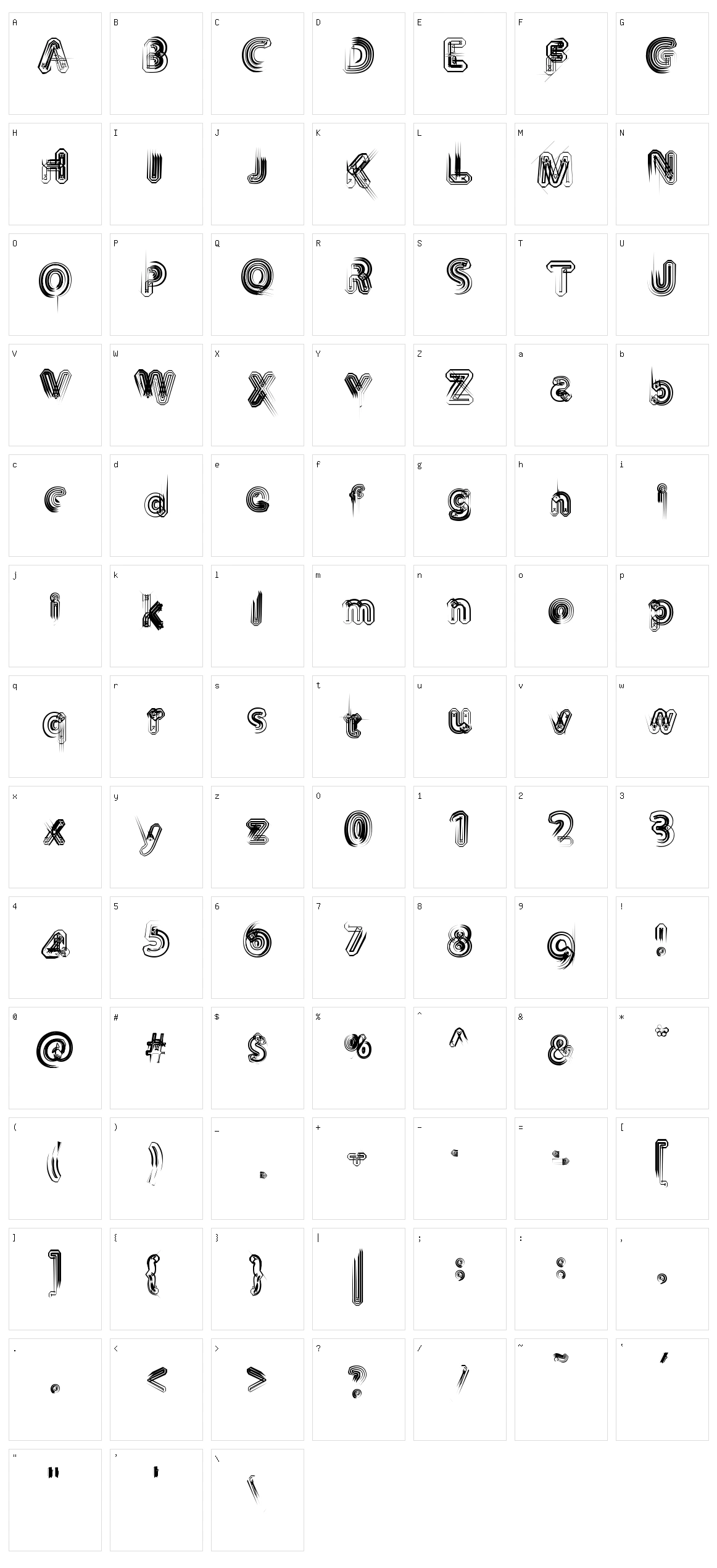
TH3 Machine
Designed by: Sharkshock
Meet TH3 MACHINE: Twisted..Irregular...Unassuming...Futuristic? Maybe even a bit apocalyptic. Whatever reason you downloaded it for BEWARE and PROCEED with CAUTION. This font is better suited
for say a title or band name than conversational text. Some of the glyphs are purposefully difficult to read and lean on their "less destroyed" characters for legibility in context. Basic